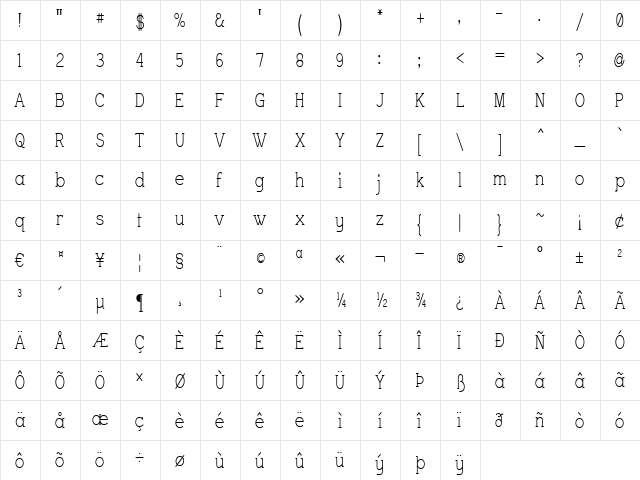
Charrington Narrow Regular
Design Context for Charrington Narrow Typeface
Charrington Narrow is a composed and adaptable typeface that performs quietly and consistently across a wide range of design contexts. Its narrow stance lets it pack a punch even in space-constrained designs.